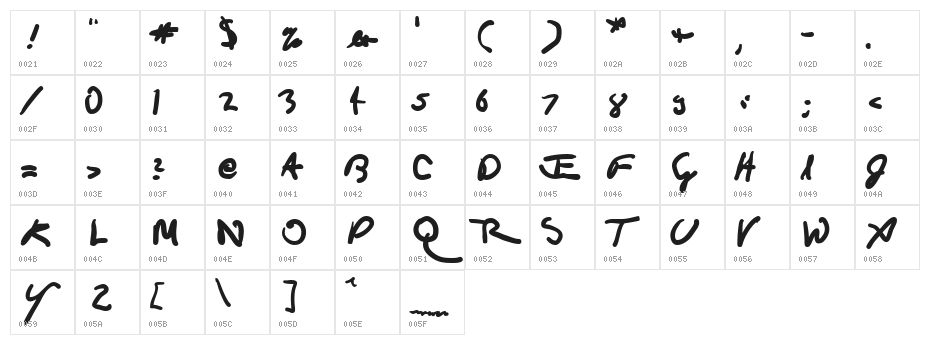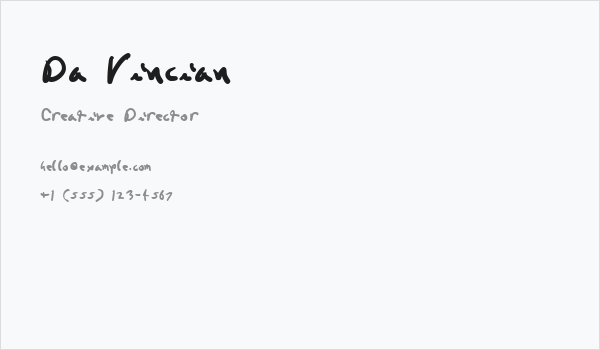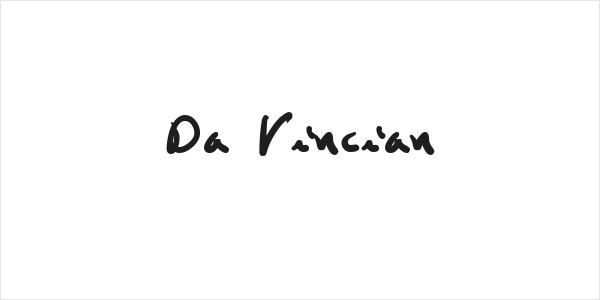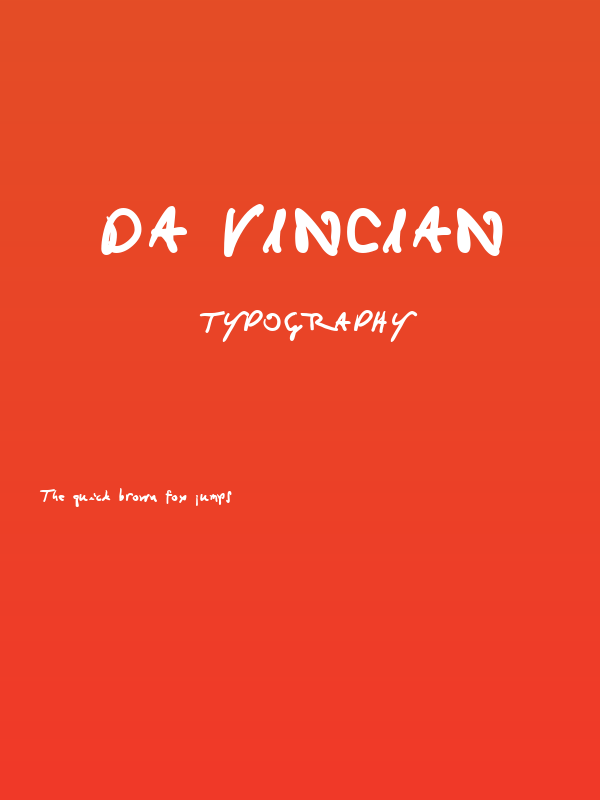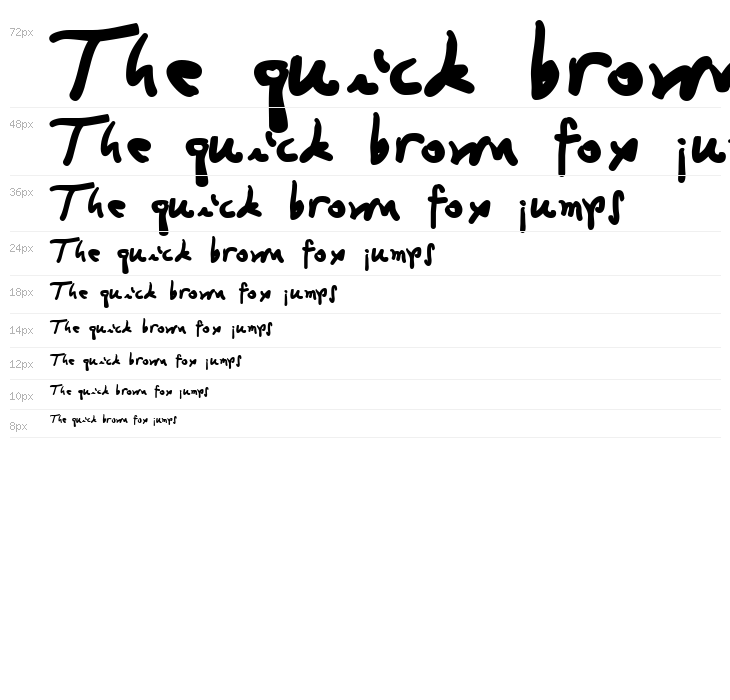
Da Vincian Font
Da Vincian Description
This font exudes a dynamic and artistic flair, reminiscent of handwritten script with a touch of spontaneity. The characters are fluid and slightly irregular, giving them a personal and expressive quality. The uppercase letters are bold and prominent, while the lowercase letters maintain a consistent flow, enhancing the handwritten feel. Numbers and special characters follow the same organic style, ensuring a cohesive look across all text elements. The overall appearance is both casual and sophisticated, making it suitable for projects that require a personal touch.
| Overall Style | Artistic, Casual |
| Use Case | Logos, Invitations, Artistic Posters |
| Proposed Projects | Ideal for creative projects such as invitations, greeting cards, personal branding, and artistic posters. |